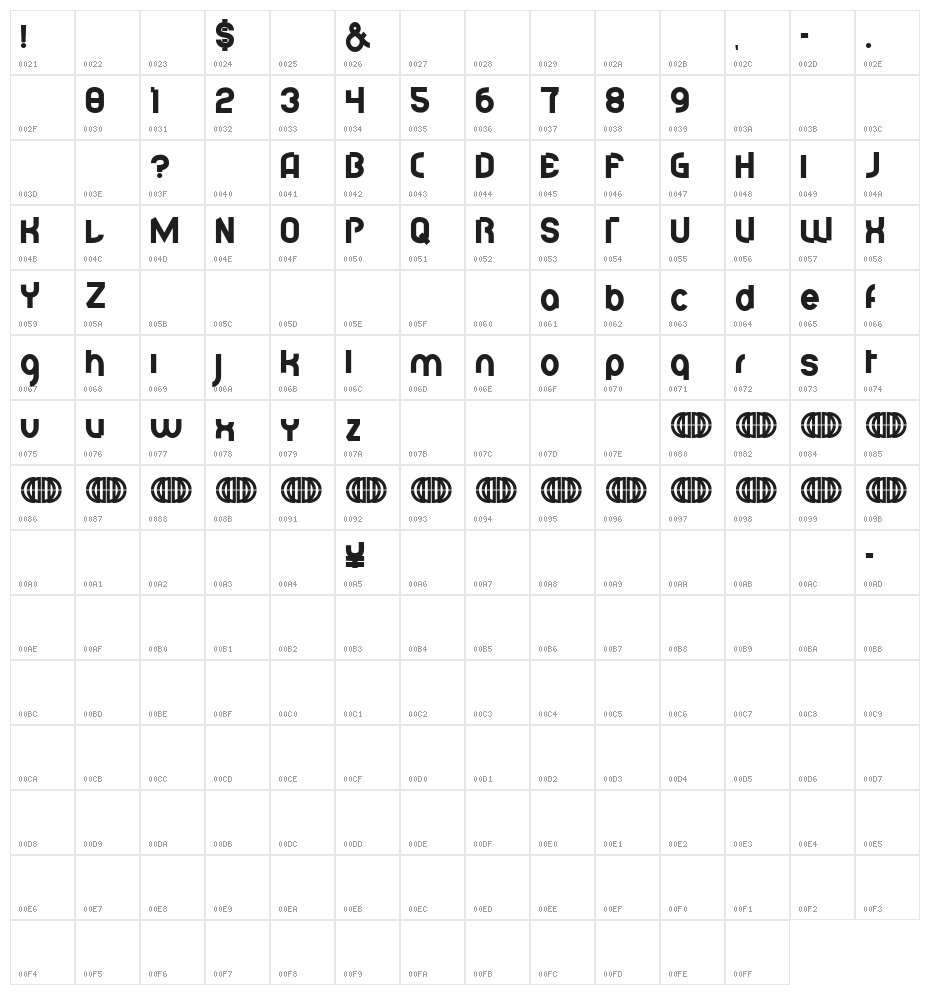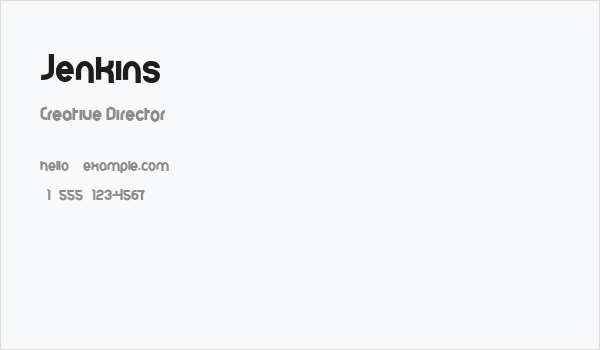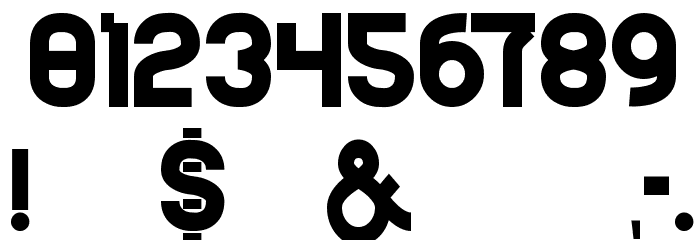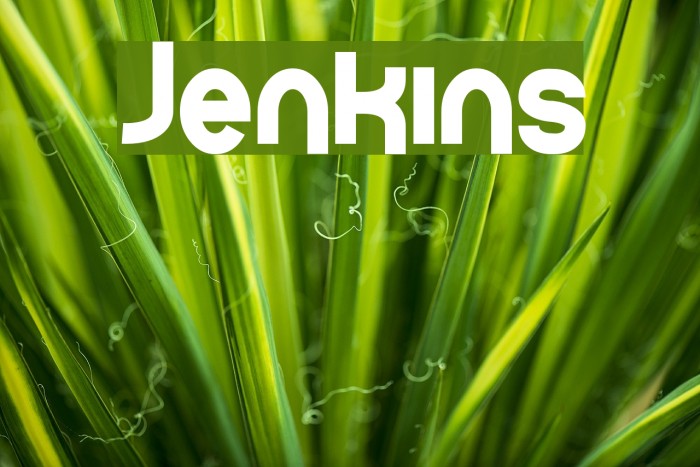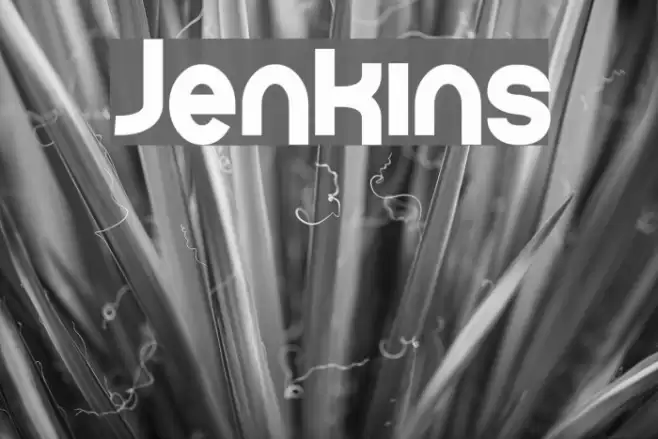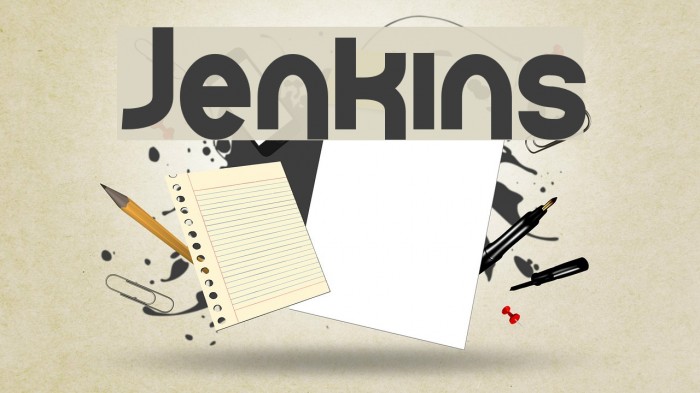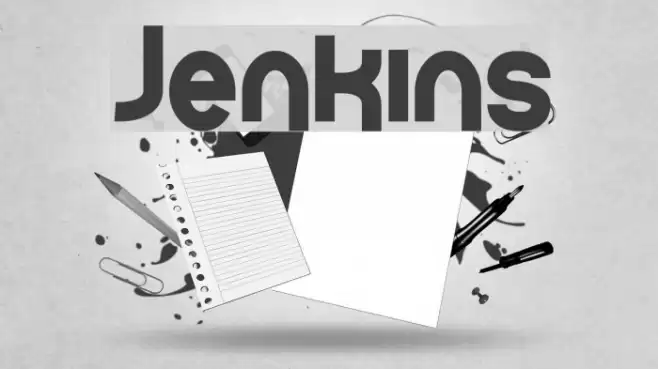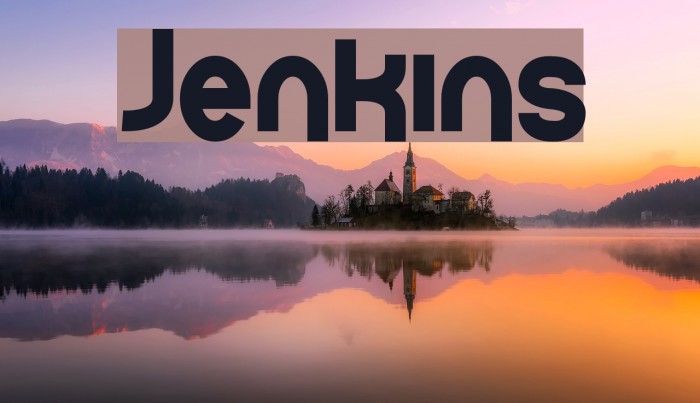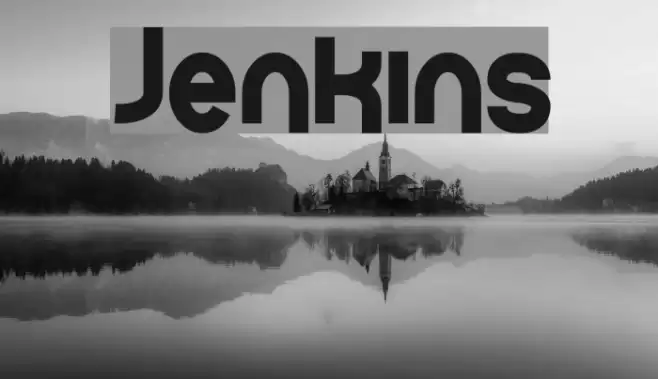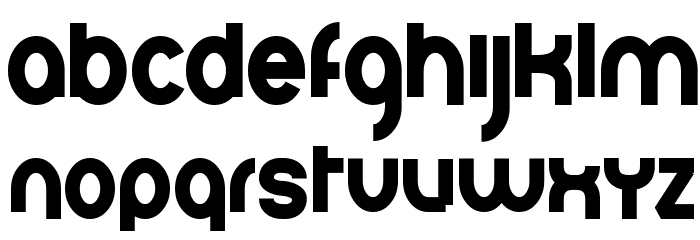
Jenkins Font
Jenkins Description
This font features a bold and geometric style with a strong presence. The characters are constructed with thick, uniform strokes, giving them a robust and modern appearance. The uppercase letters have a distinctive block-like form, while the lowercase letters maintain a consistent roundness that complements the overall design. The numerals are equally bold, ensuring readability and impact. Special characters are designed to match the boldness and geometric nature of the alphabet, making them suitable for a variety of uses. The font's clean lines and lack of serifs contribute to its contemporary and versatile aesthetic.